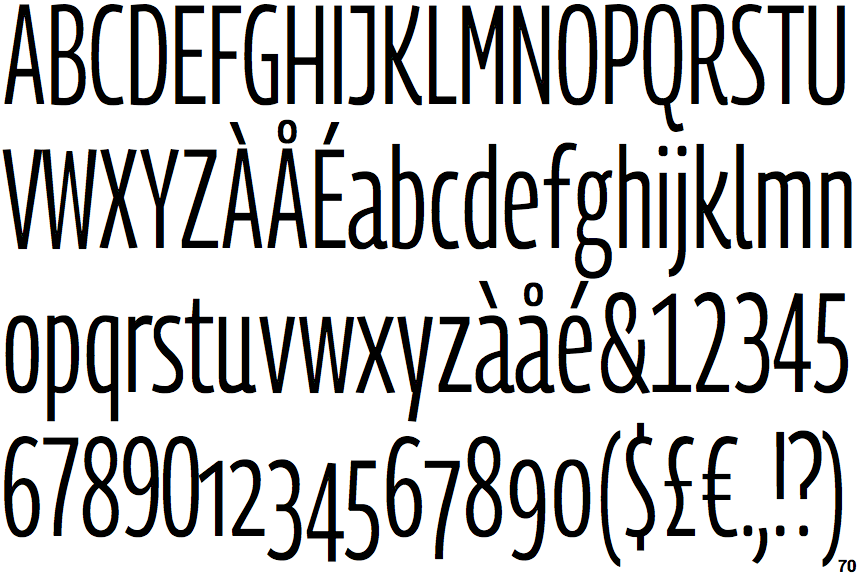
Panorama Extra Condensed
One of the Tallest sans-serif fonts for narrow spaces.
Designers: Jean-Baptiste Levée, Yohanna My Nguyen, Xavier Majewski and Benjamin Vesco Publisher: Production Type |